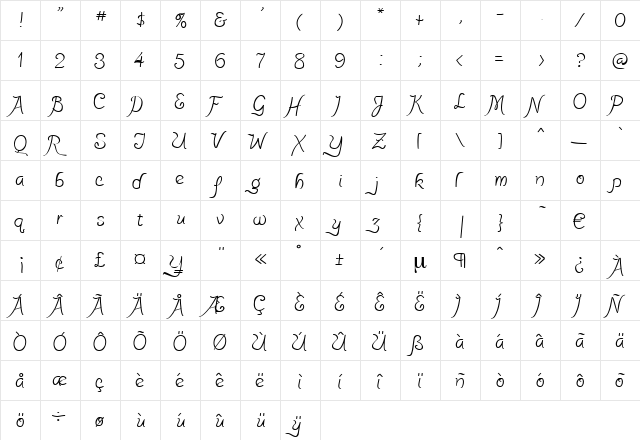
Sindbad Regular Font Preview
Sindbad Regular
Design Context for Sindbad Typeface
Sindbad is a composed and adaptable typeface that performs quietly and consistently across a wide range of design contexts.